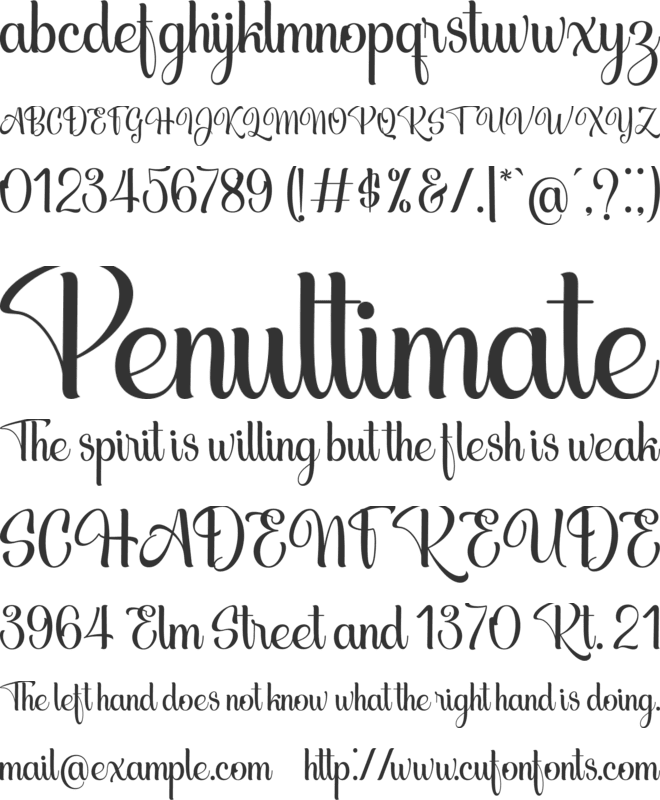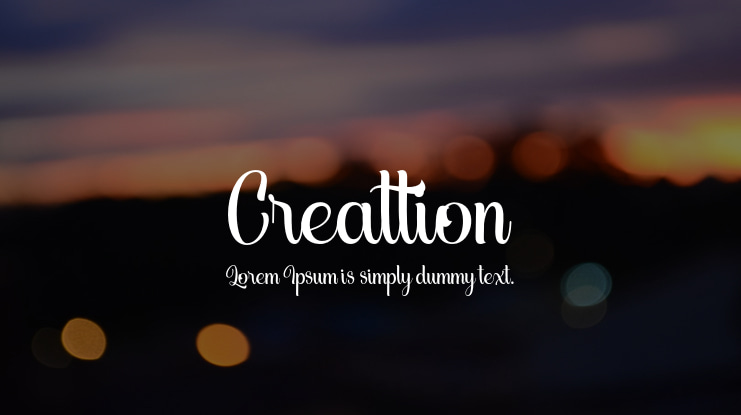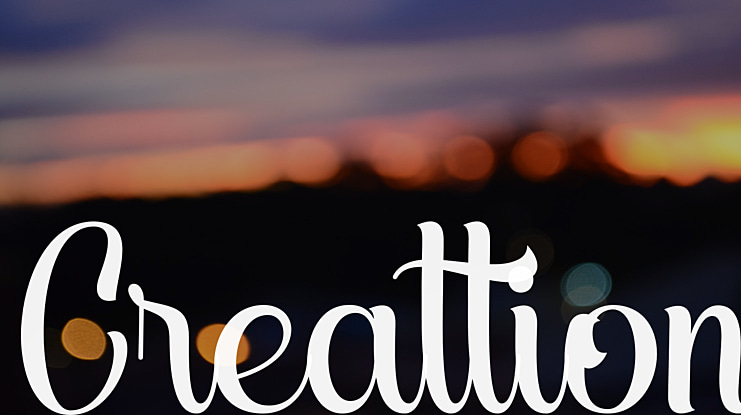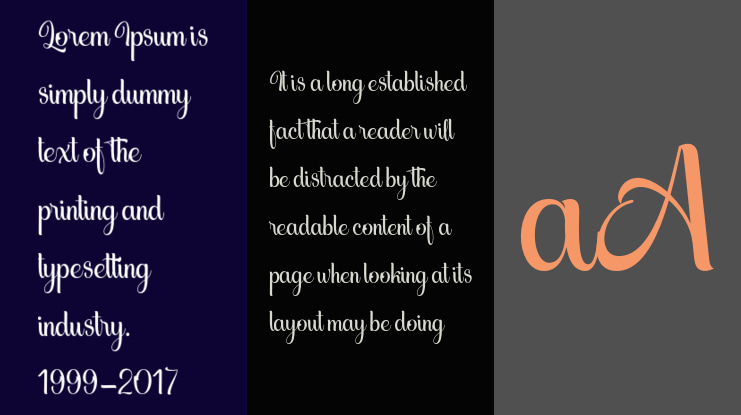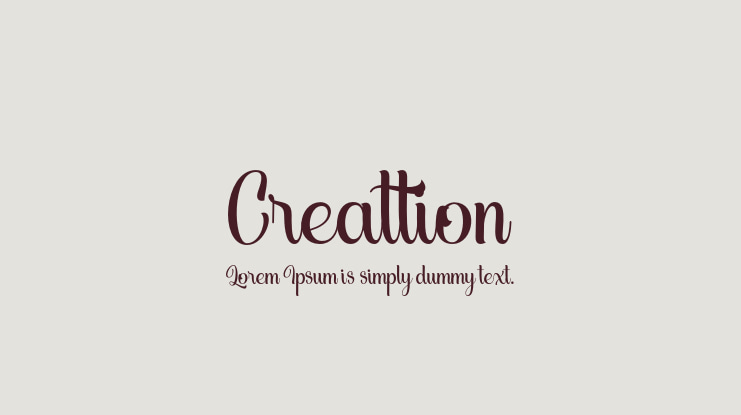
Creattion Font
Introducing Creattion - A Stylish Script FontCreattion is a retro bold script font. It is PUA encoded which means you can access all of the glyphs and swashes with ease! It features a varying baseline, vintage and retro taste, gorgeous glyphs and stunning alternates. Fall in love with its incredibly versatile style and use it to create spectacular designs!FEATURES- TTF/OTF- Stylistic Alternates- Ligatures- Uppercase and Lowercase letters- Numbering and Punctuations- Multilingual Support- Works on PC or Mac- Simple Installation- Support Adobe Illustrator, Adobe Photoshop, Adobe InDesign, also works on Microsoft WordHope you Like it.Thanks
Creattion font preview